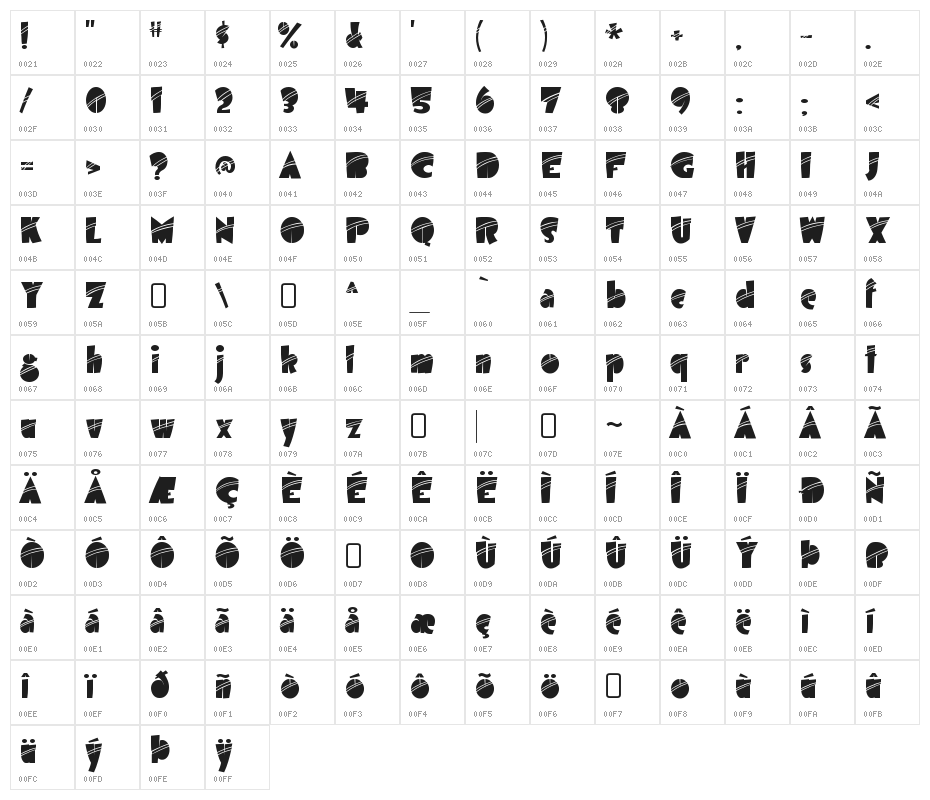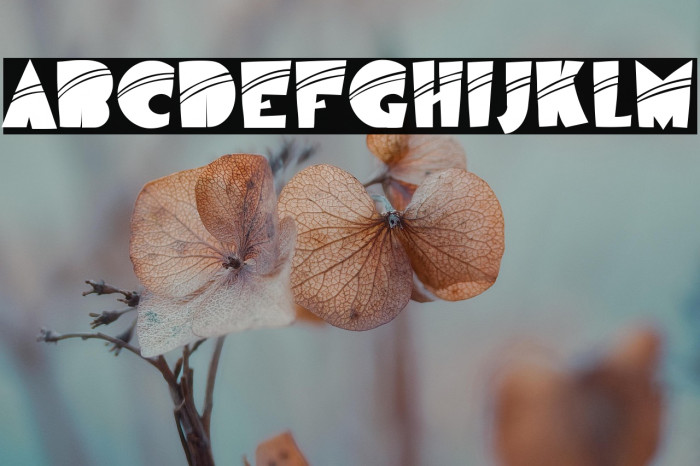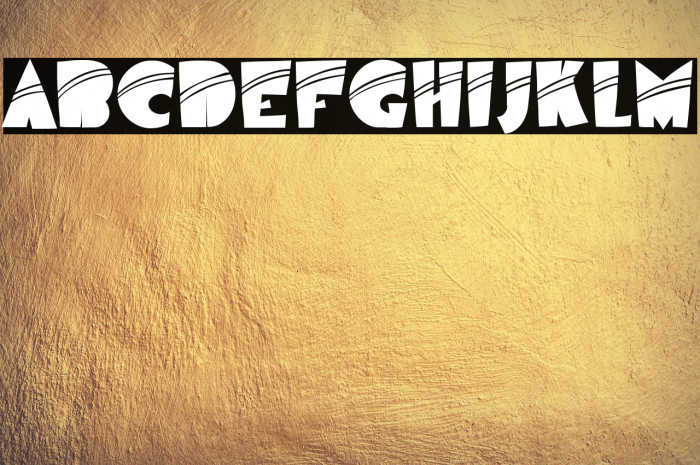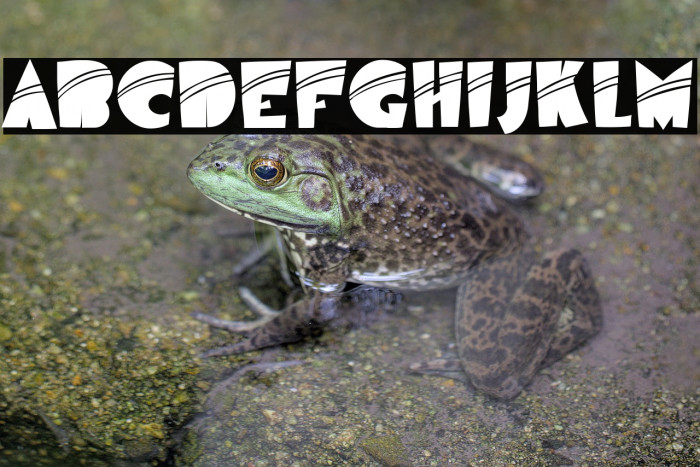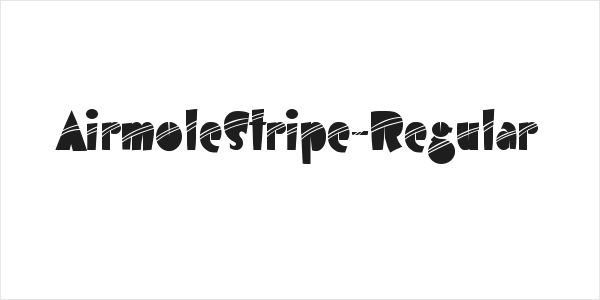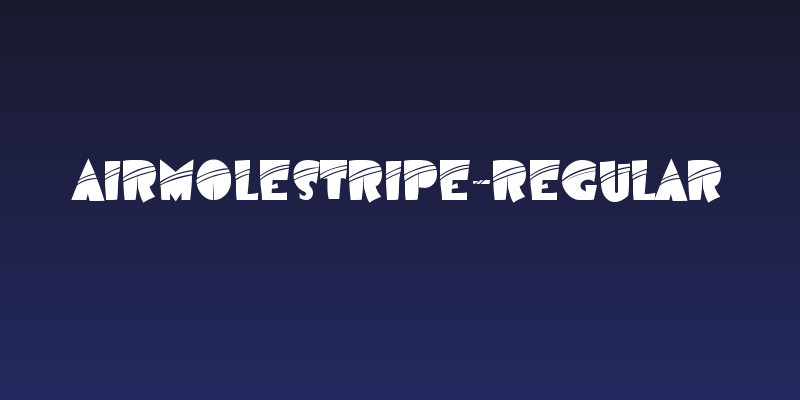
AirmoleStripe-Regular Font
AirmoleStripe-Regular Description
This font features a bold and dynamic design with a unique striped pattern running through each character, adding a sense of movement and energy. The letters are thick and robust, with a playful and slightly irregular shape that gives it a whimsical and artistic flair. The uppercase and lowercase letters maintain a consistent style, while the numbers and special characters follow the same bold and striped theme. This font is eye-catching and ideal for projects that require a strong visual impact.
| Proposed Projects | Ideal for posters, branding, and creative projects that require a bold and artistic touch. |